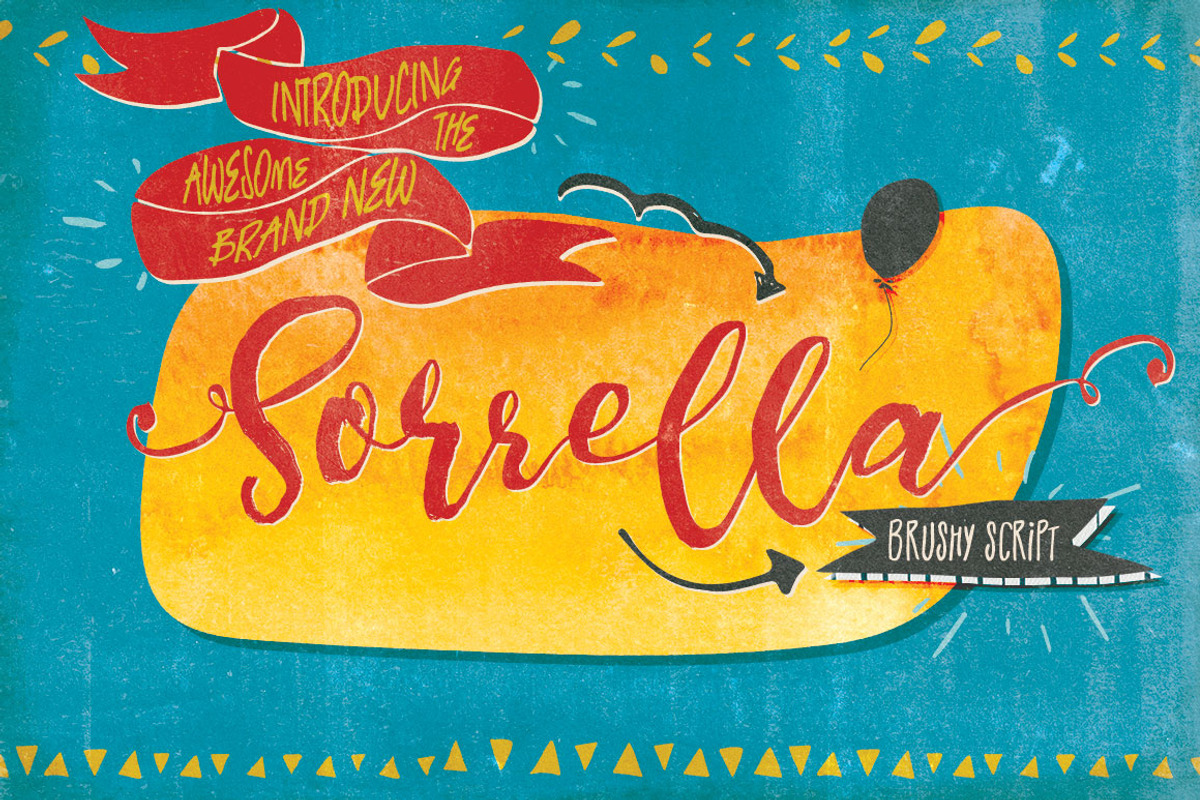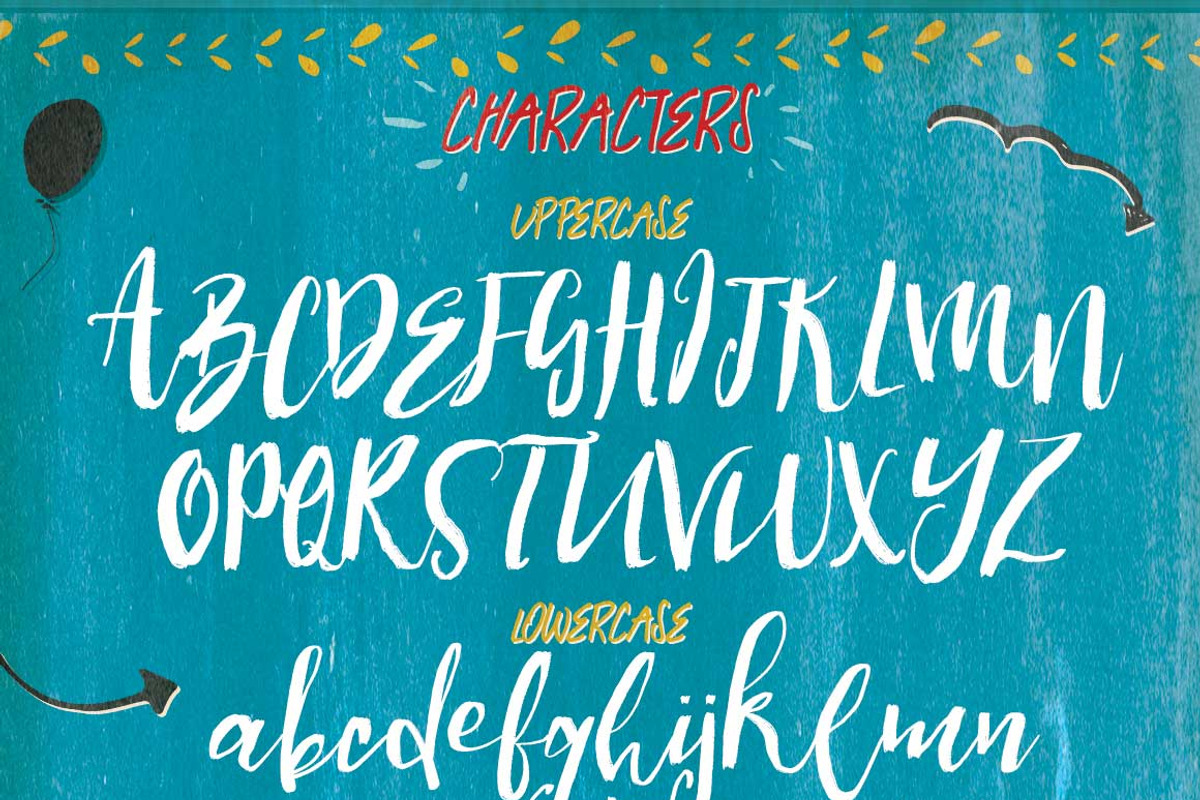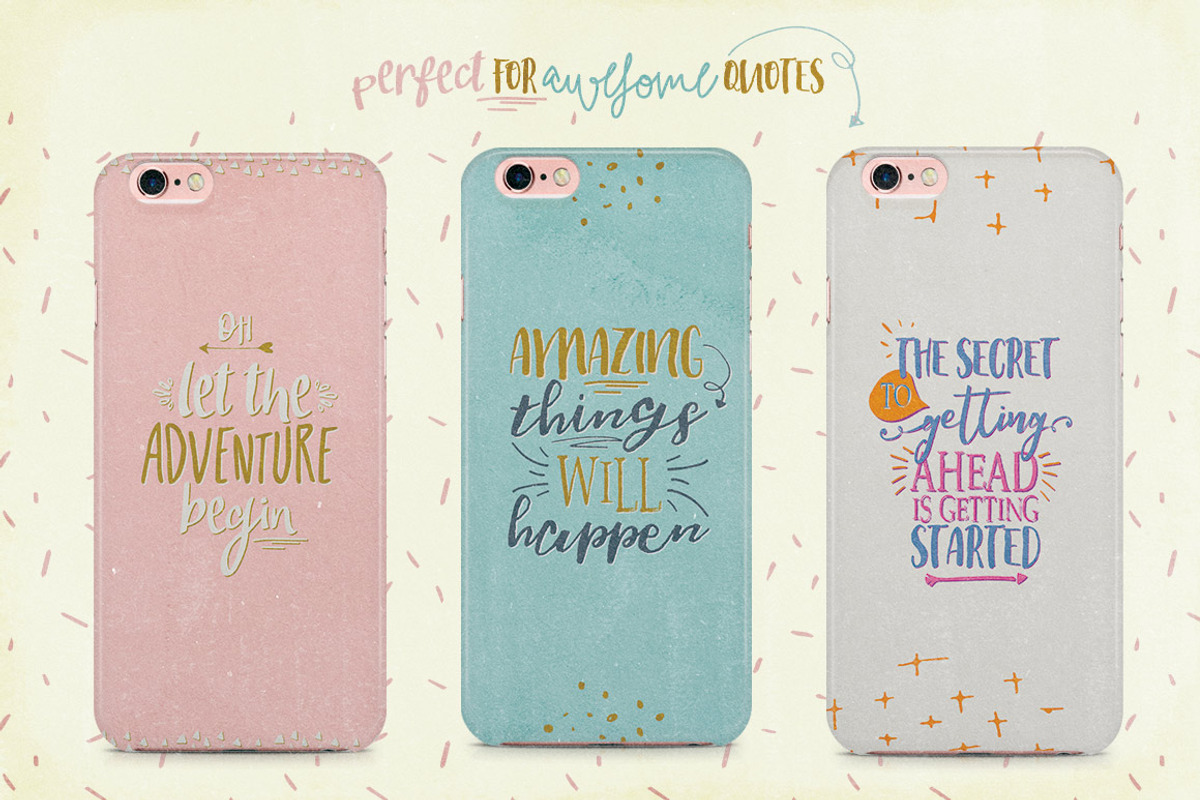
Sorrella Script Font
Sorrella Script Font by Creativeqube Design is a font selected for branding, posters, packaging, typography.
- This font has lots of alternates, including initial and terminal swashes and standard ligatures.
Why Sorrella Script Font is worth a look
Sorrella Script Font by Creativeqube Design fits naturally into Branding, posters, packaging, typography.